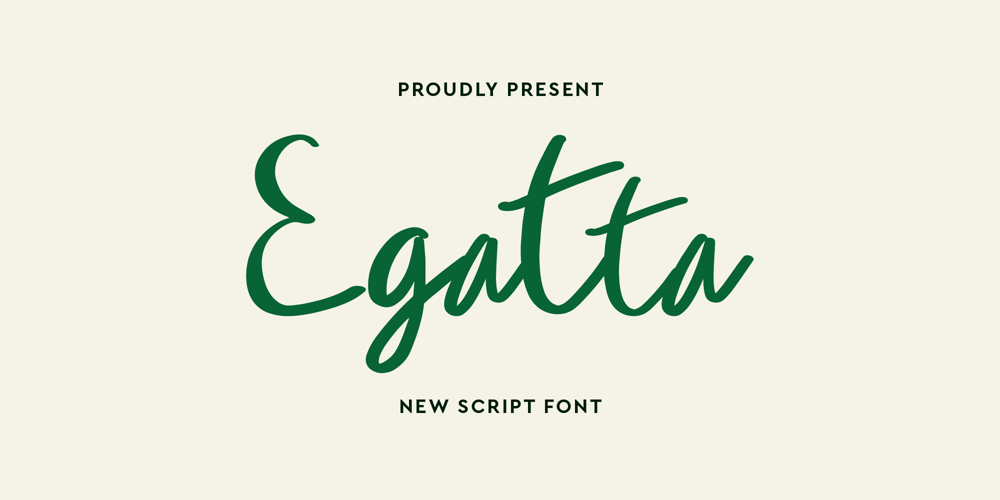
Egatta Font Family was designed by Iwan Alwan and published by Artiveko. Egatta contains 2 styles and family package options. Egatta is a creative script font crafted by Iwan Alwan, featuring a unique design with dynamic variations in uppercase and lowercase letters.This font stands out with its elegant curves and versatile style, making it perfect for branding, invitations, and artistic projects. Egatta also supports multiple languages and includes a variety of ligatures, enhancing its flexibility for diverse design needs.Embrace the artistic charm of Egatta to add a sophisticated and personalized touch to your typography.